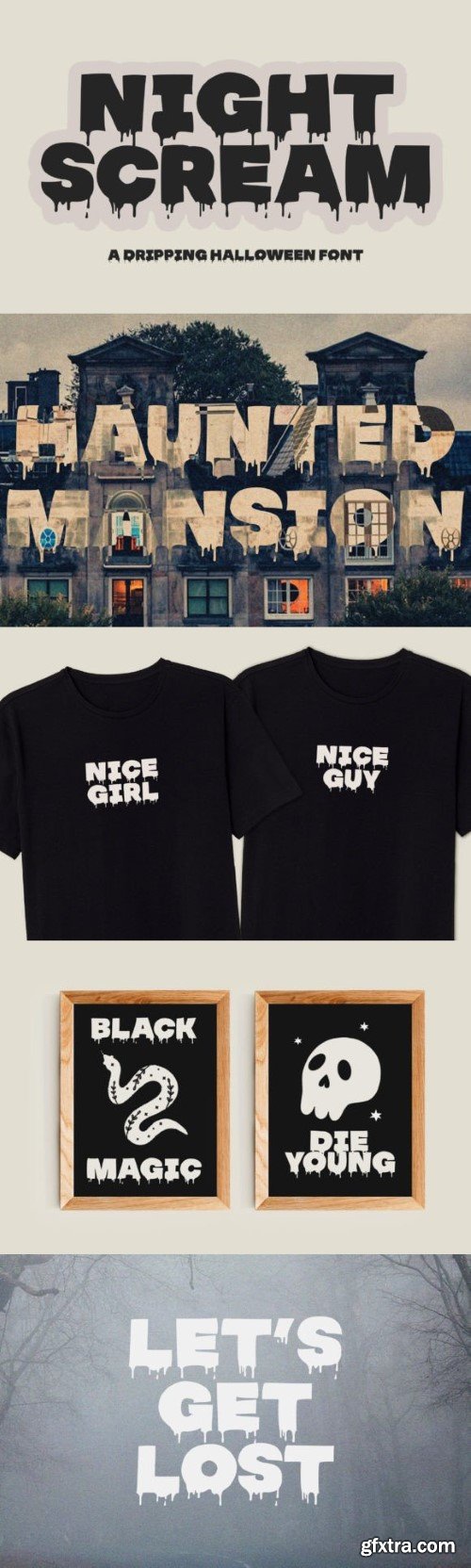
夜 scream 字体
Night Scream is a fun halloween font with dripping letters and a groovy vibe. It includes capital letters only and no accent letters. Add it to your logos, web designs, social media, business cards and so much more.